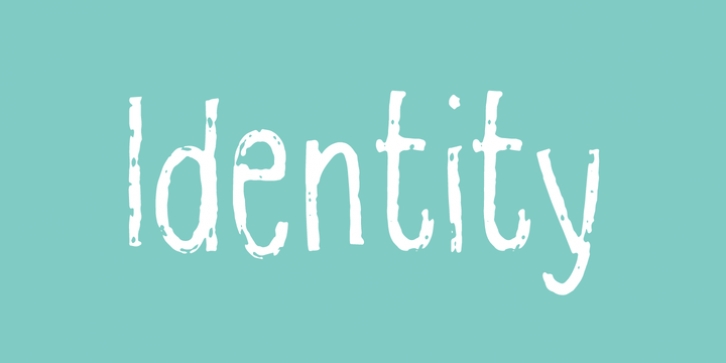
A handmade and slightly worn sans. Although it may look like it was made in Photo Shop, I can tell you that it was not! Ahem ... Okay ... I added some digital roughness to the font - but I kept it in the handmade “spirit” :)
Comes with ligature substitution for double letters and has multilingual support!